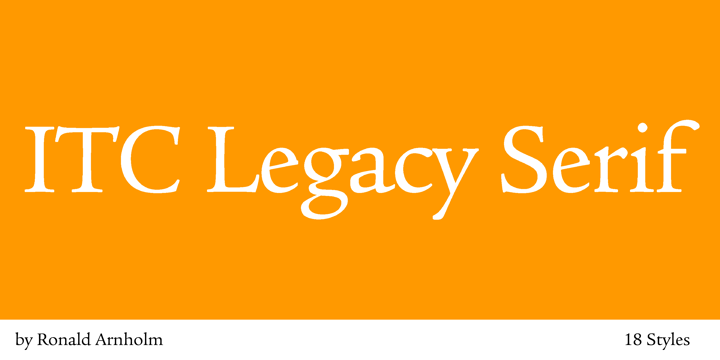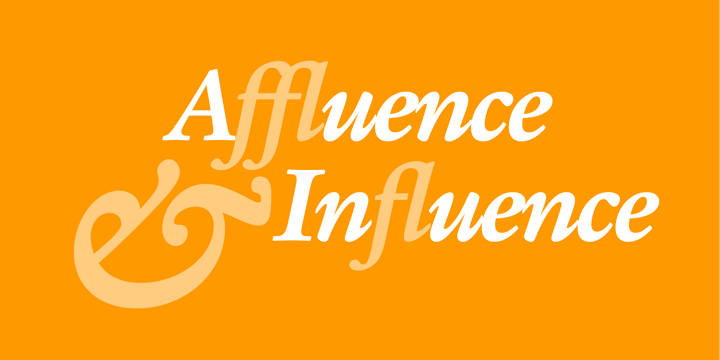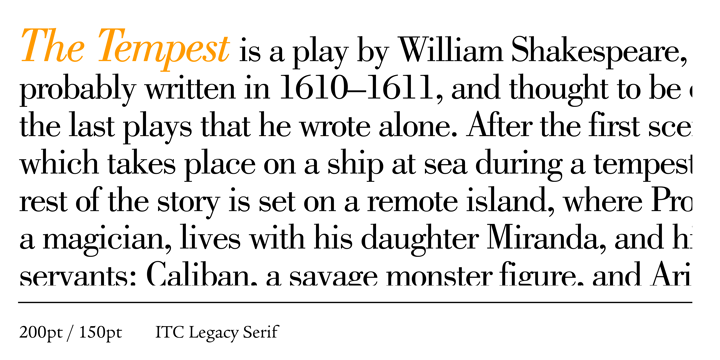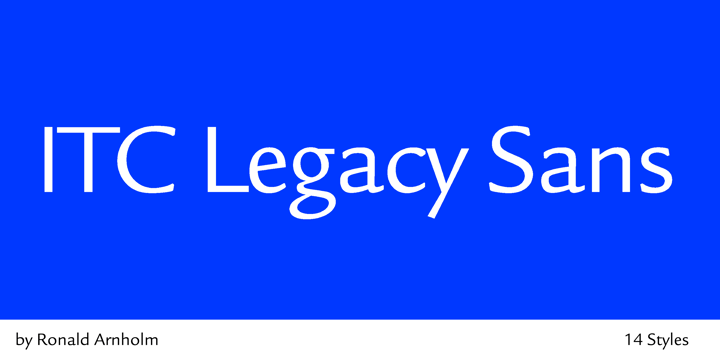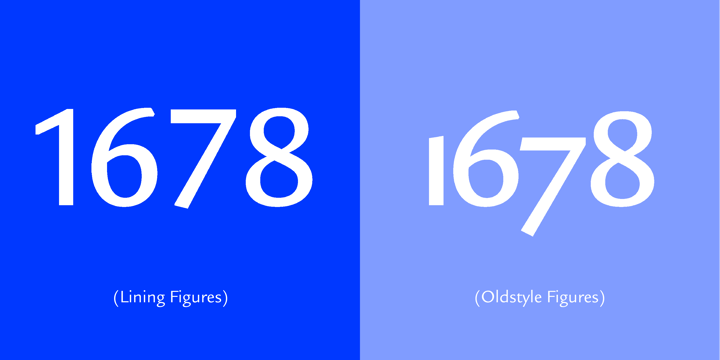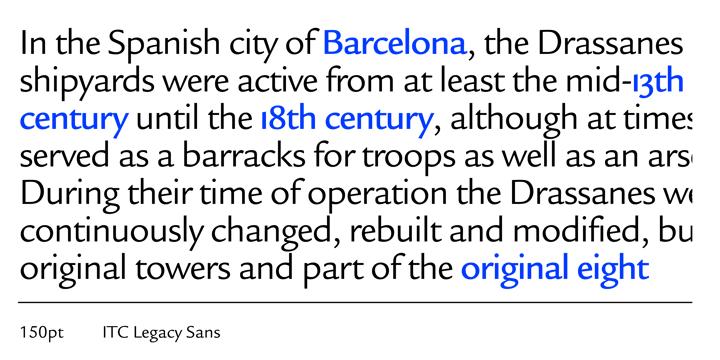
Ronald Arnholm
The designer Ronald Arnholm (born 1939) created in 1992. He was first inspired to create the typeface when he was a graduate student at Yale. In a type history class, he was impressed by a copy of the 1470 edition of Eusebius, set in the roman type of Nicolas Jenson. Arnholm went on to create a revival of Jenson's work, now called Jenson Roman, also in the Linotype Library. But he was not yet satisfied and created ITC Legacy to capture all the qualities of the original and then designed a companion series of sans serif typefaces based on the same structure of the oldstyle serif types. ITC Legacy is part of the Linotype Library. ITC Legacy is a registered trademark of International Typeface Corporation.